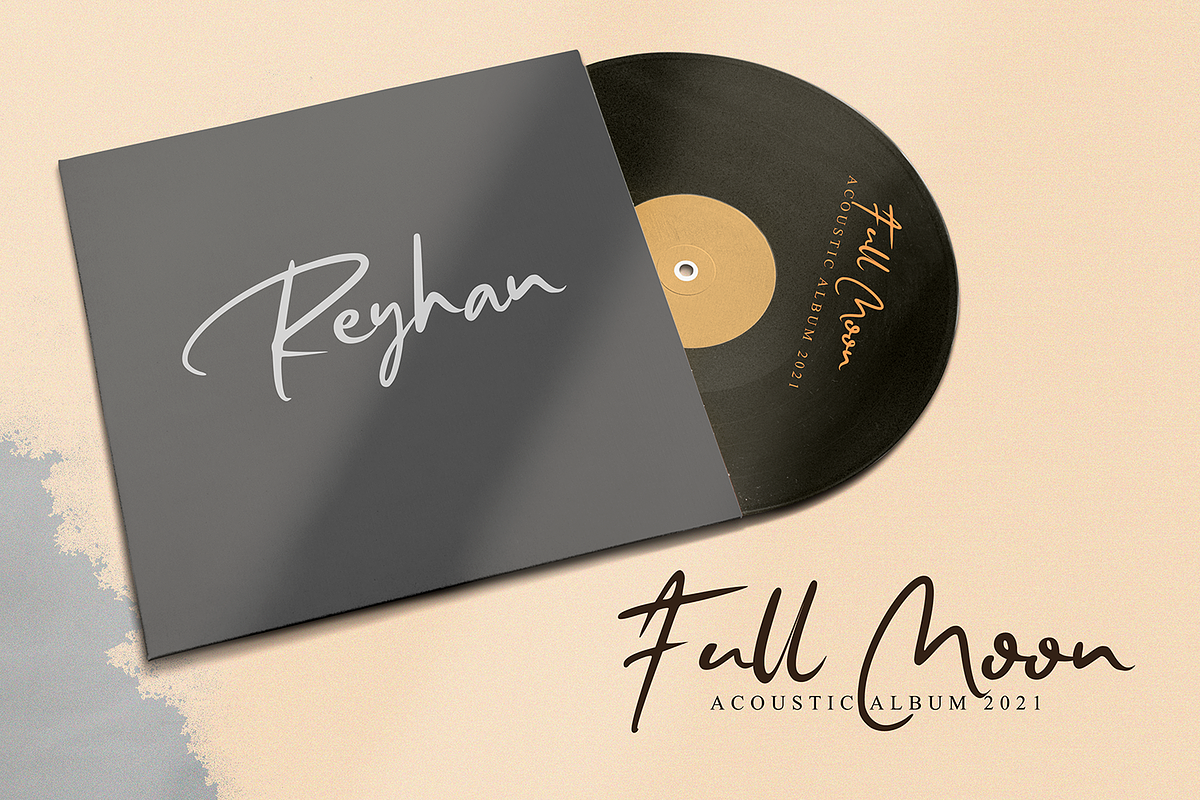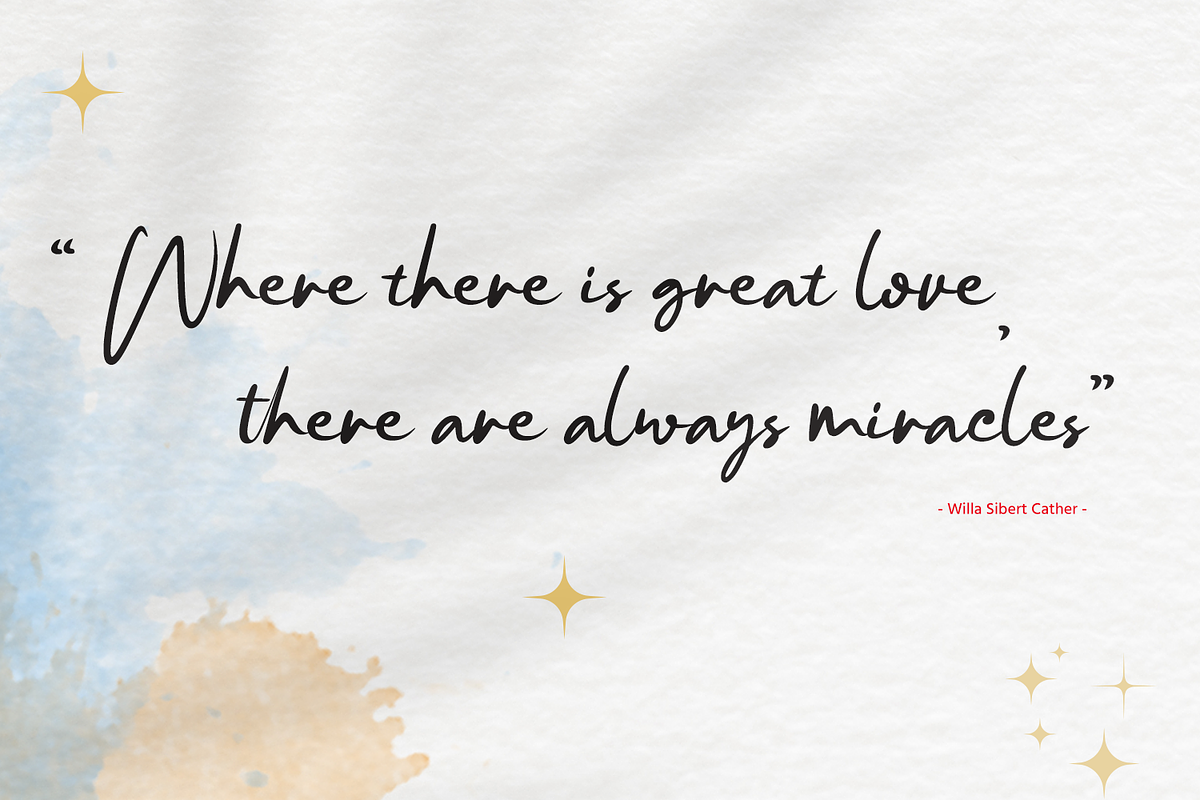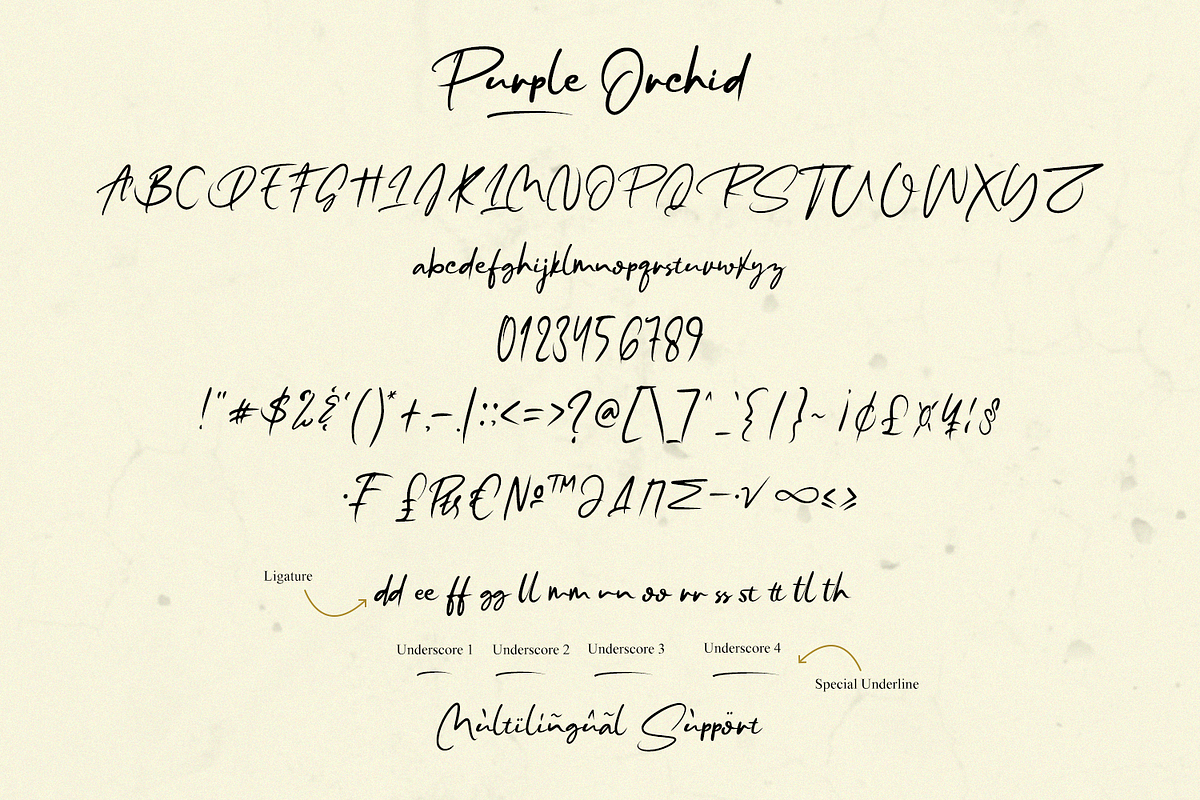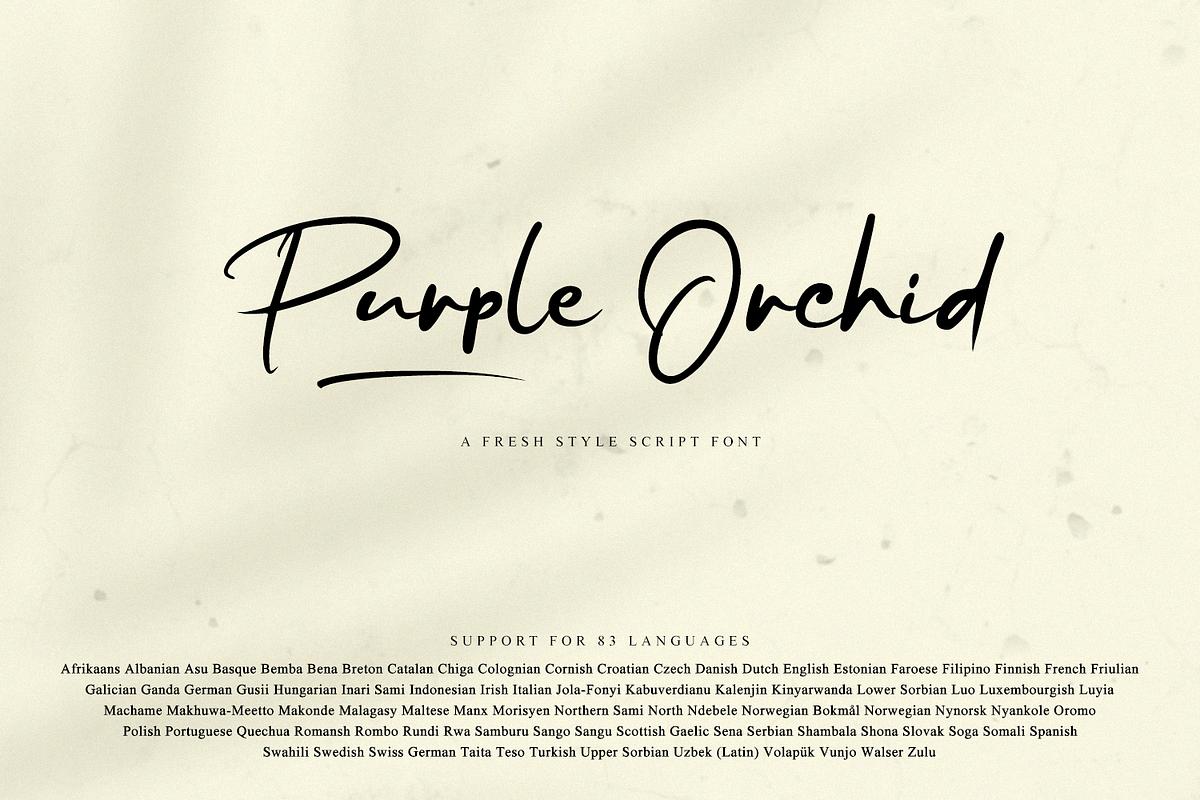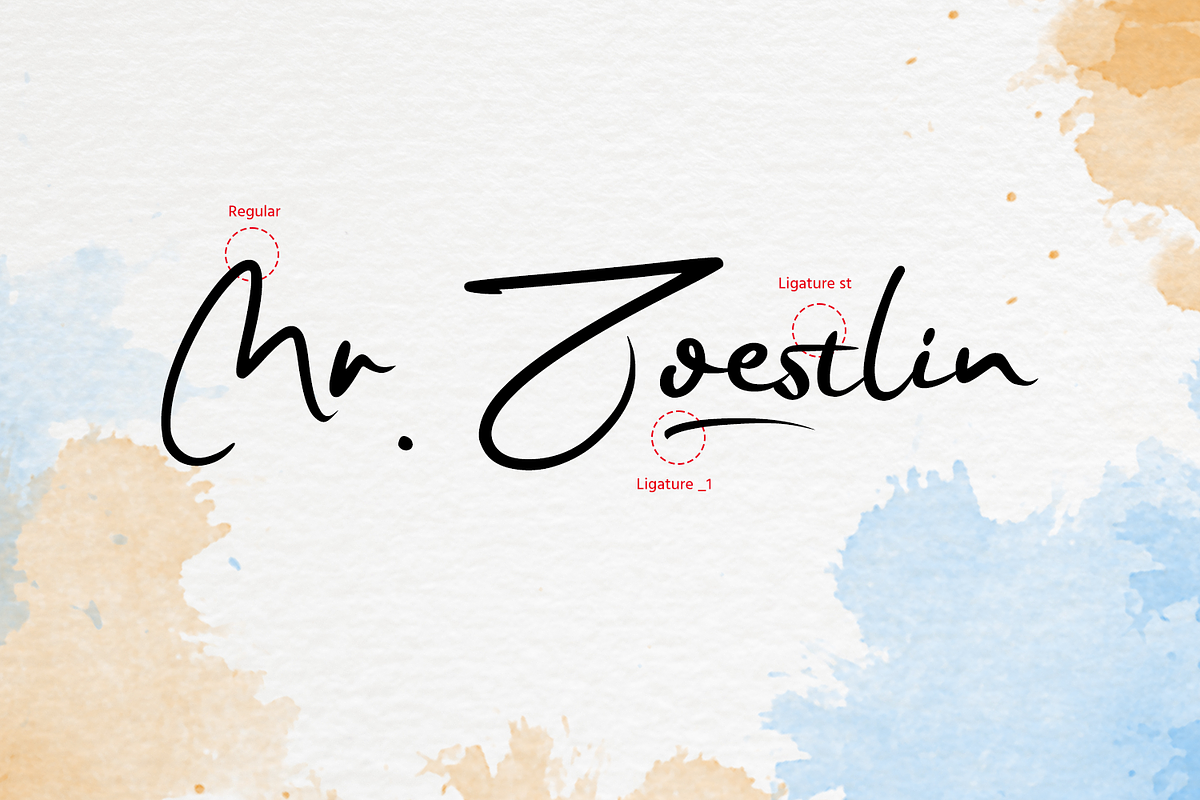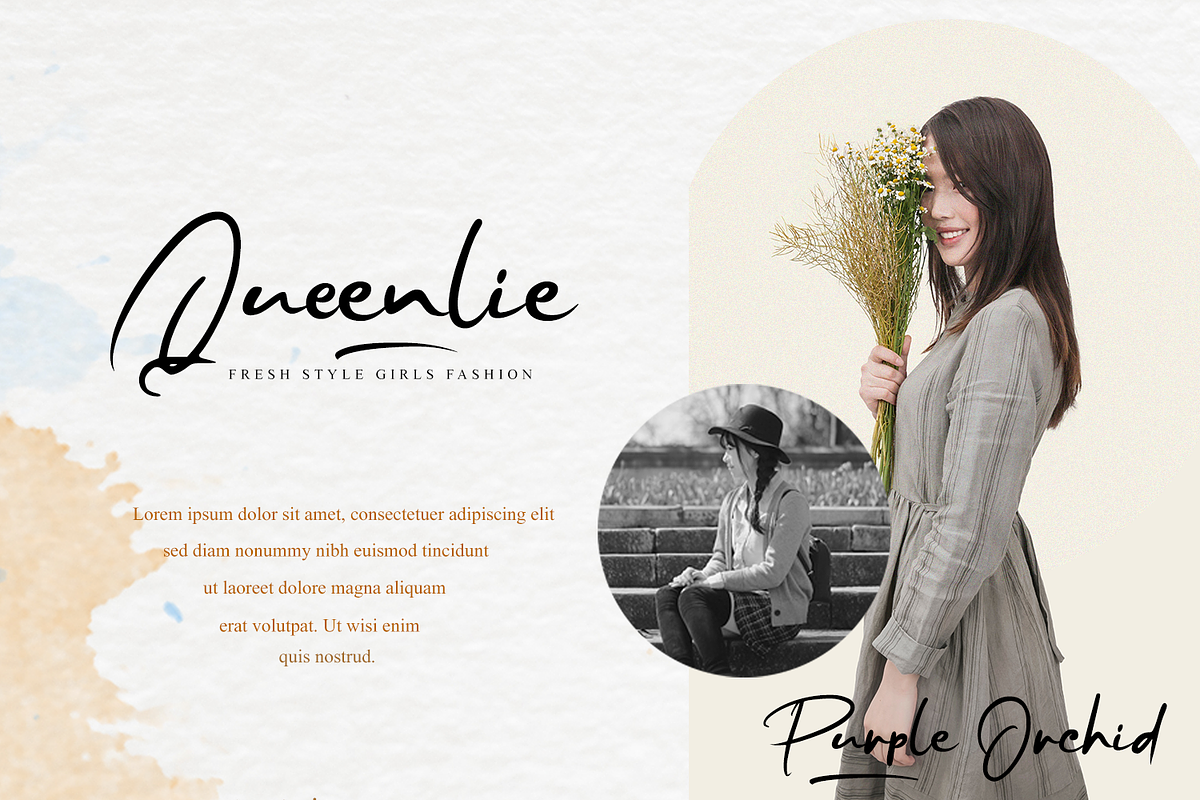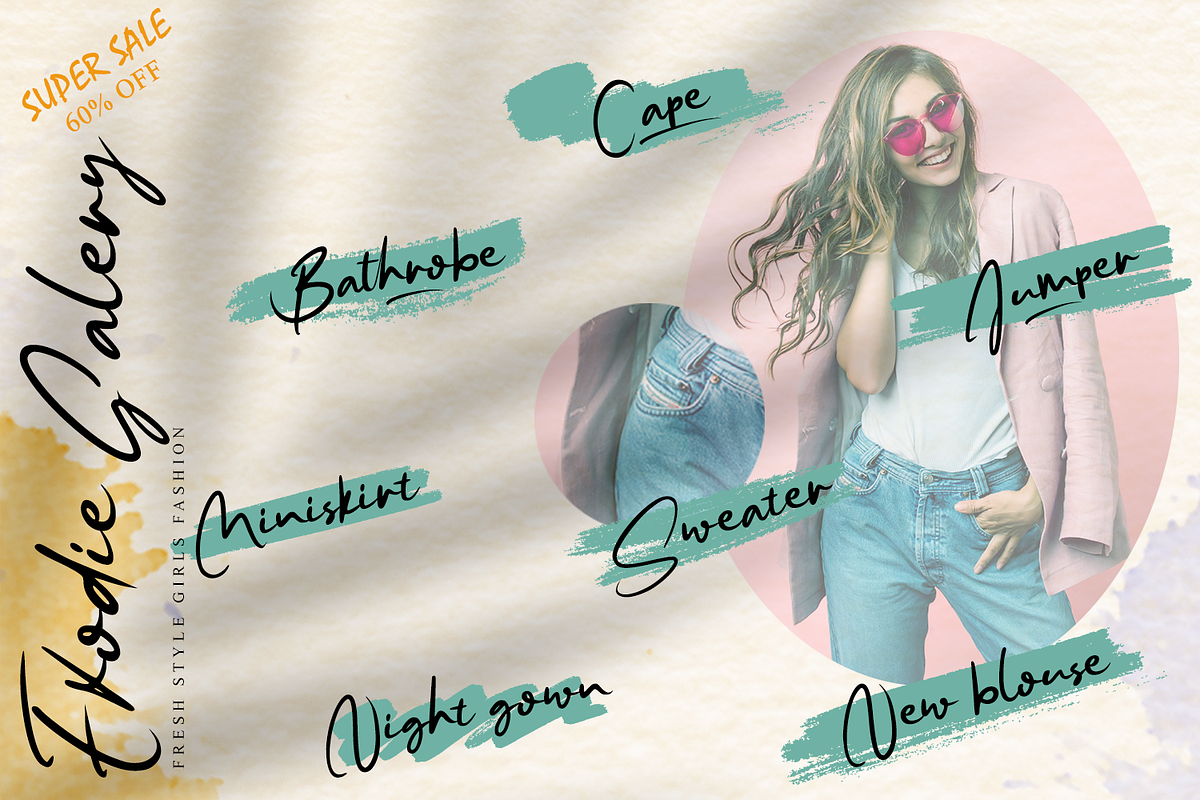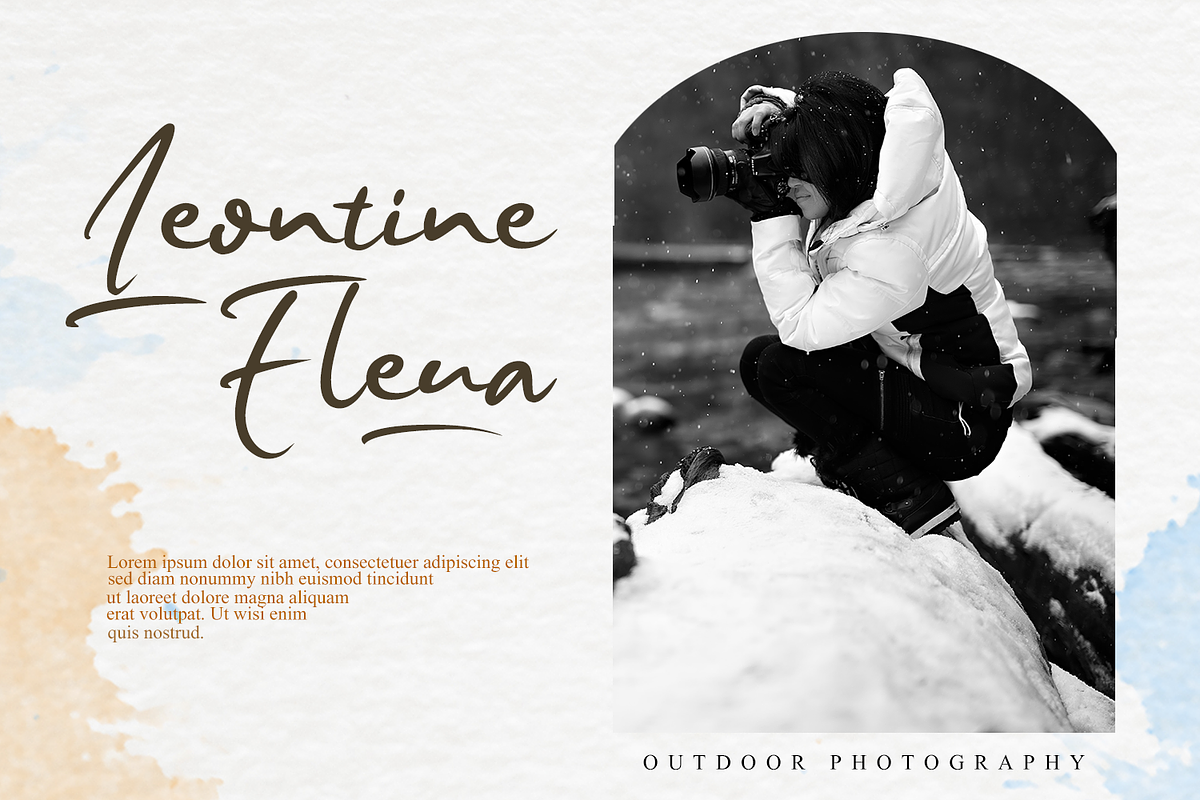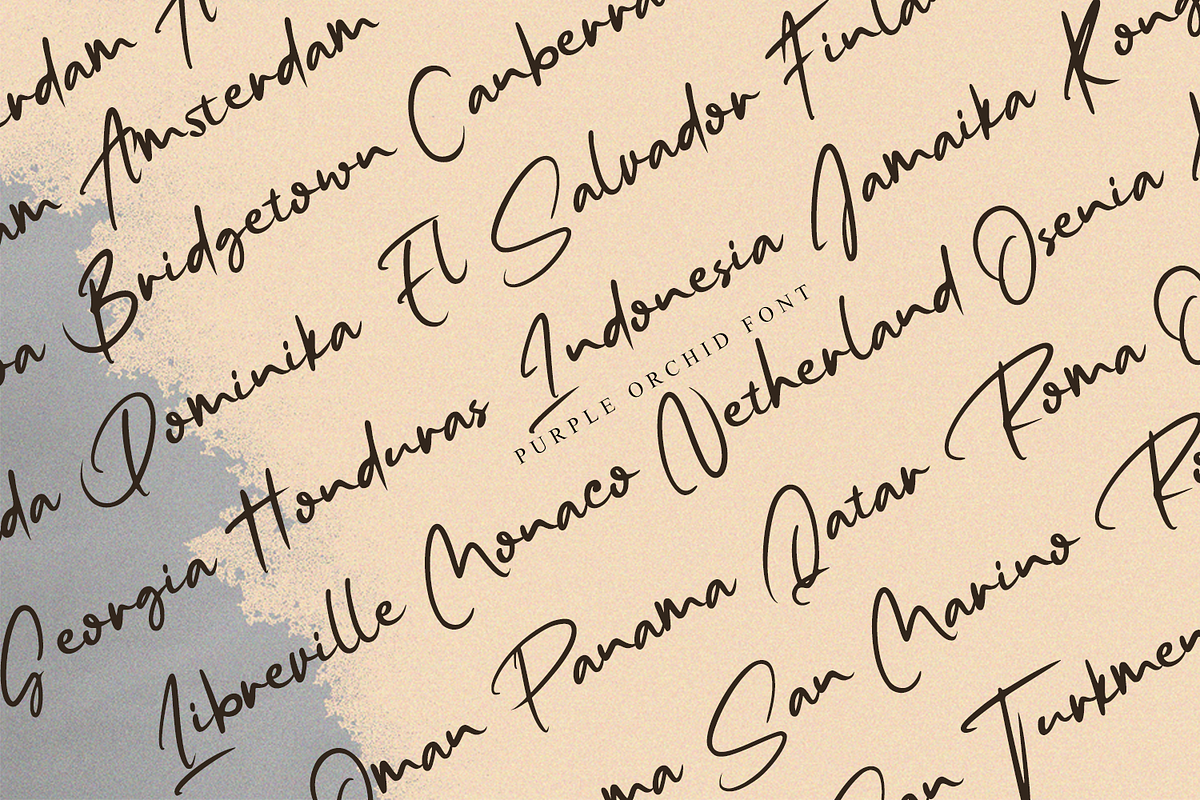
Purple Orchid // Fresh Typeface
Are you going to make your business changes more widely known? Find the solution by giving a small touch to the design of your product promo using a natural and contemporary font style !
Purple Orchid is a natural handwritten font with a modern signature style and elegance. This font is perfect for creating handwritten-style logos, wedding stationery, photographer watermarks logos, modern websites, fashion branding, name card, wedding invitation, and all the identity of your business products.
- Multilingual Support for 83 Country
- Special underline